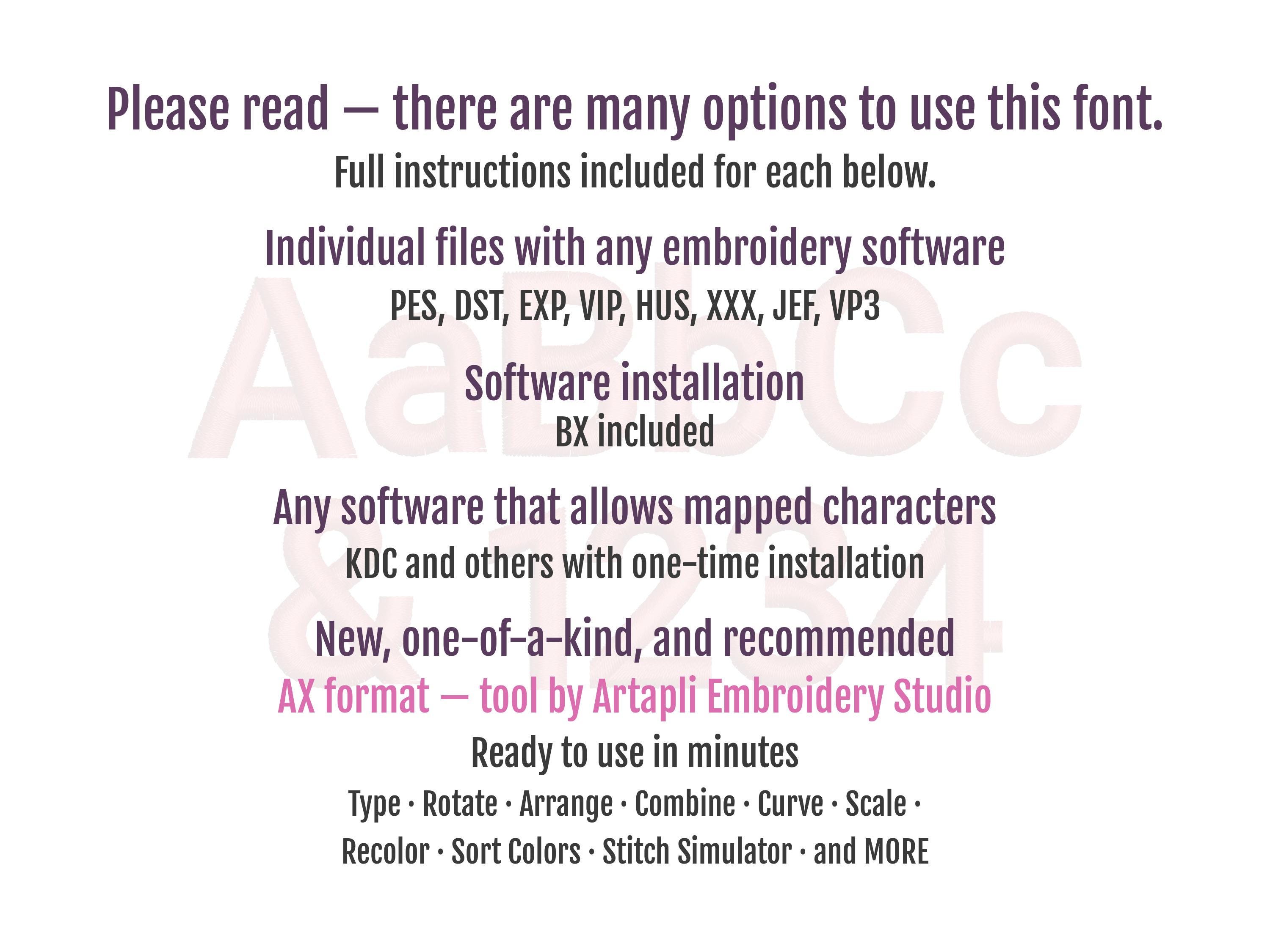
Satin stitch Mini Block Font machine embroidery designs tiny small sizes 0.6 up to 1.2 inches alphabet letters and numbers monogram font BX
0.6 inch
Uppercase and lowercase letters, numbers, and punctuation.